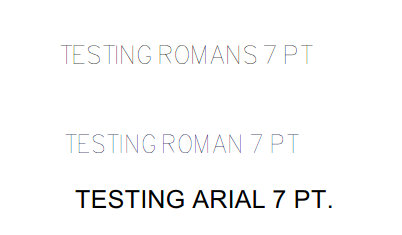
Font Appearance
I need to use Romans font to meet client requirements. I can not get it to publish with black letters, as I can with Arial. Starting with an Arial font, and changing only the font to Romans results in a grayed out text when published. Even changing the pen to a heavier pen does make much difference. Any thoughts?
Does it make any difference if you make it 'Bold"?
No, it looks just the same.
A little research shows even Revit users have this problem - apparently something due to the nature of the font. So I might need to find a substitute which I have not yet found.
ROMANS is the TTF version of an old 1980's AutoCAD font created for use in Pen Plotters. It is my understanding that you wil not find a bold version since the way to make it bold was to use a "thicker" technical pen when you sent the DWG to the plotter.
This font should not be a standard for any office.
I agree, but it is the standard for the State of New York Office of General Services
Agree, they are using standards that is based on one particular software package which is "prohibited" under government rules. But this is so absurd that I think you will not be able to convince them that they are wrong on having that "font" as a standard.
RomanD is the "Bold" version of RomanS. Try to use it and see if they can detect the difference.
RomanD is the "Bold" version of RomanS.
I'd completely forgotten about those bad old days.